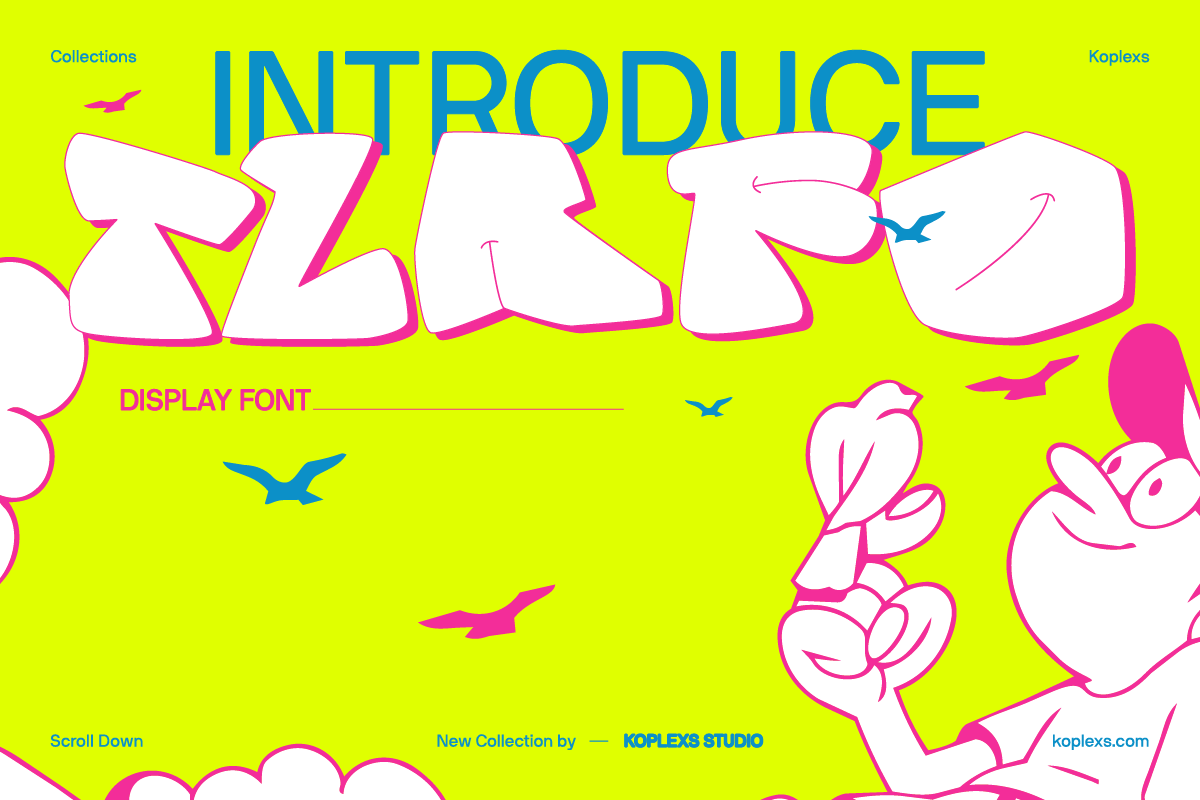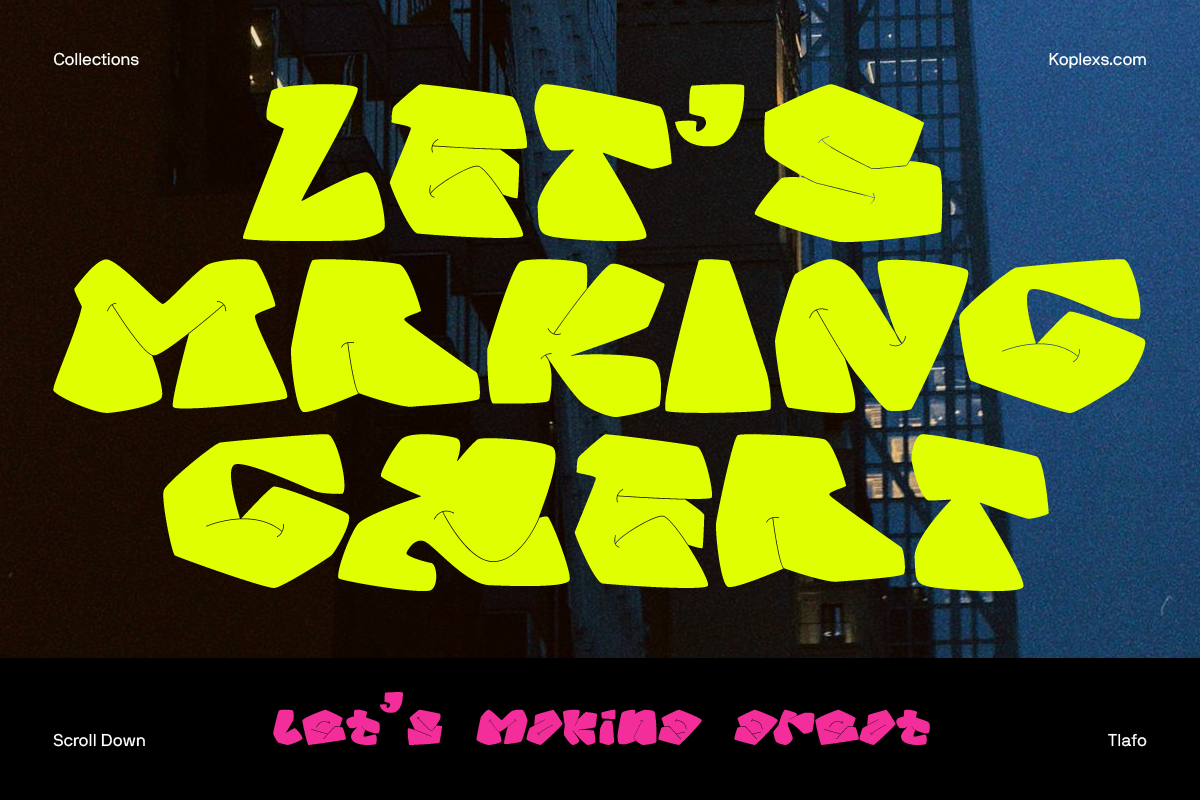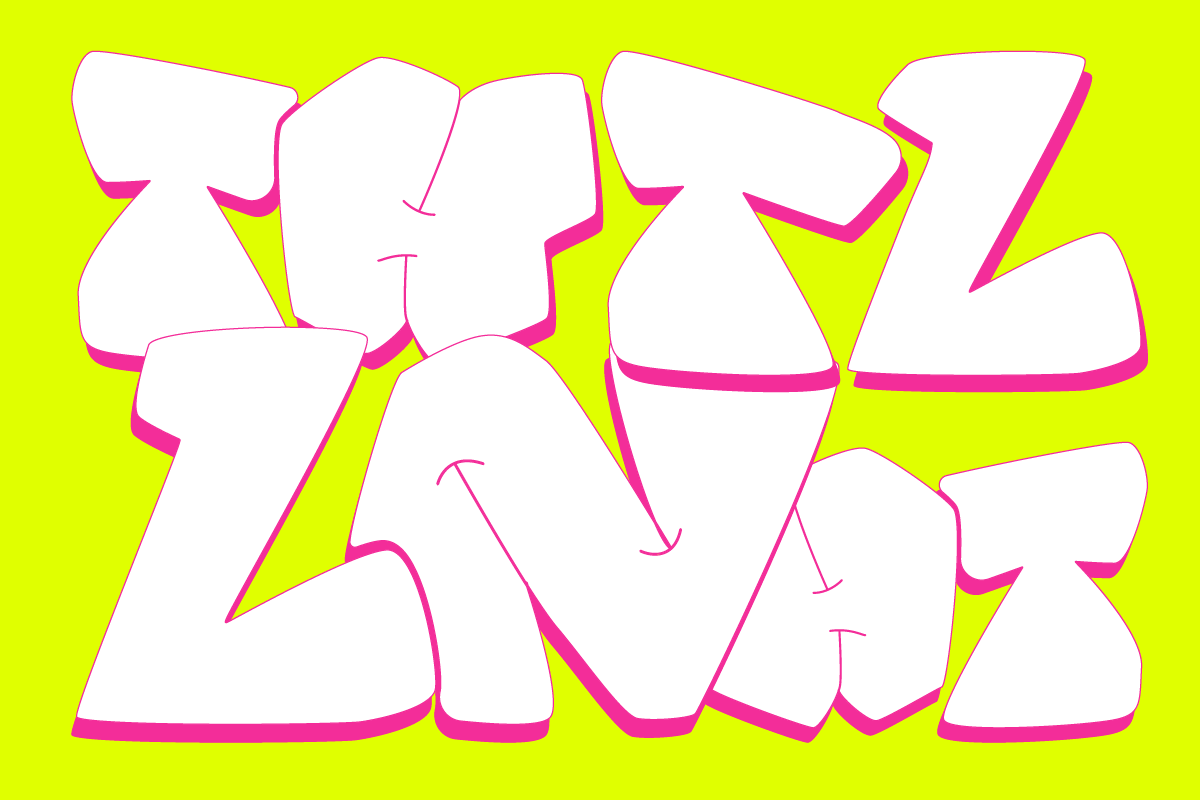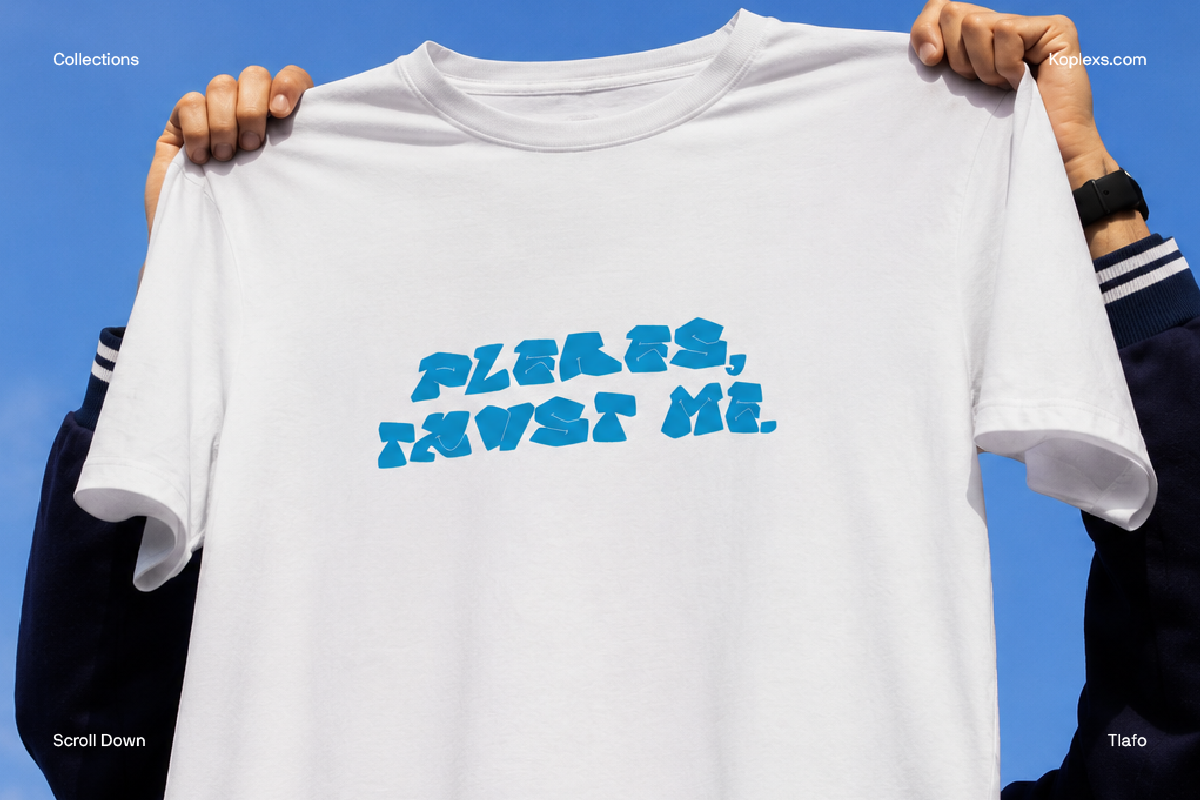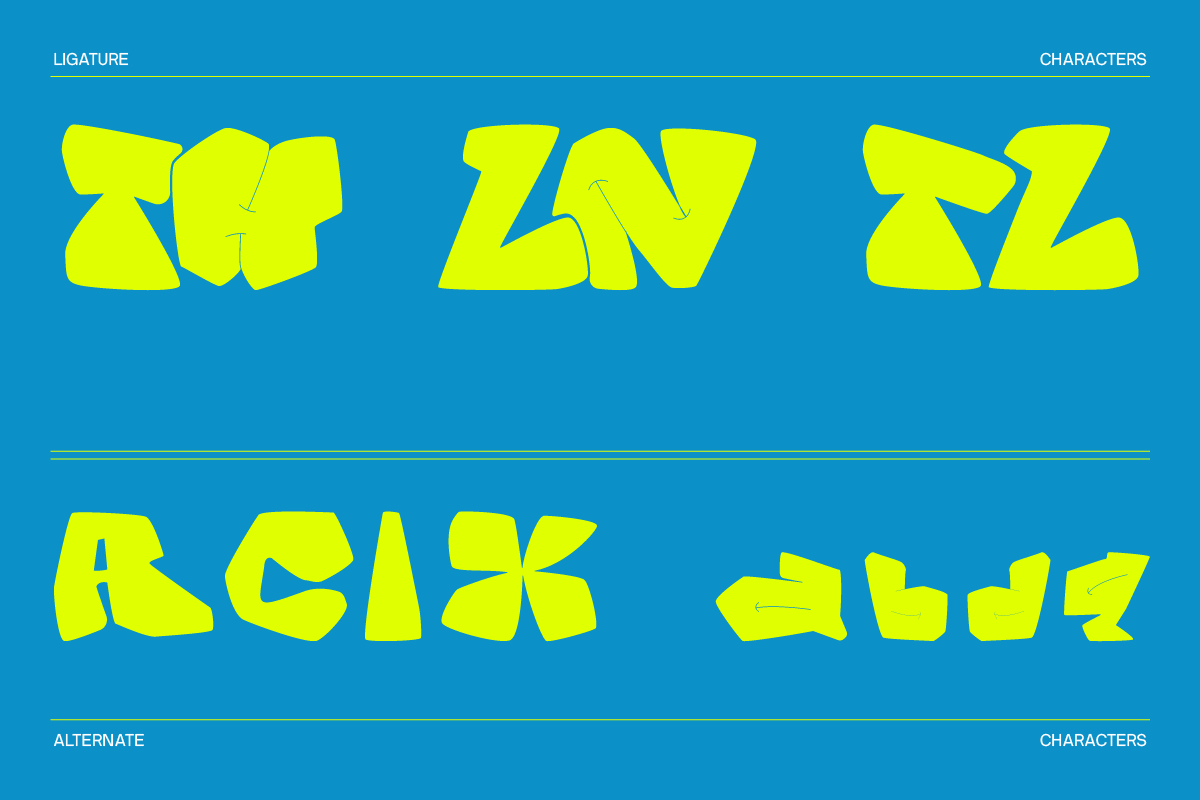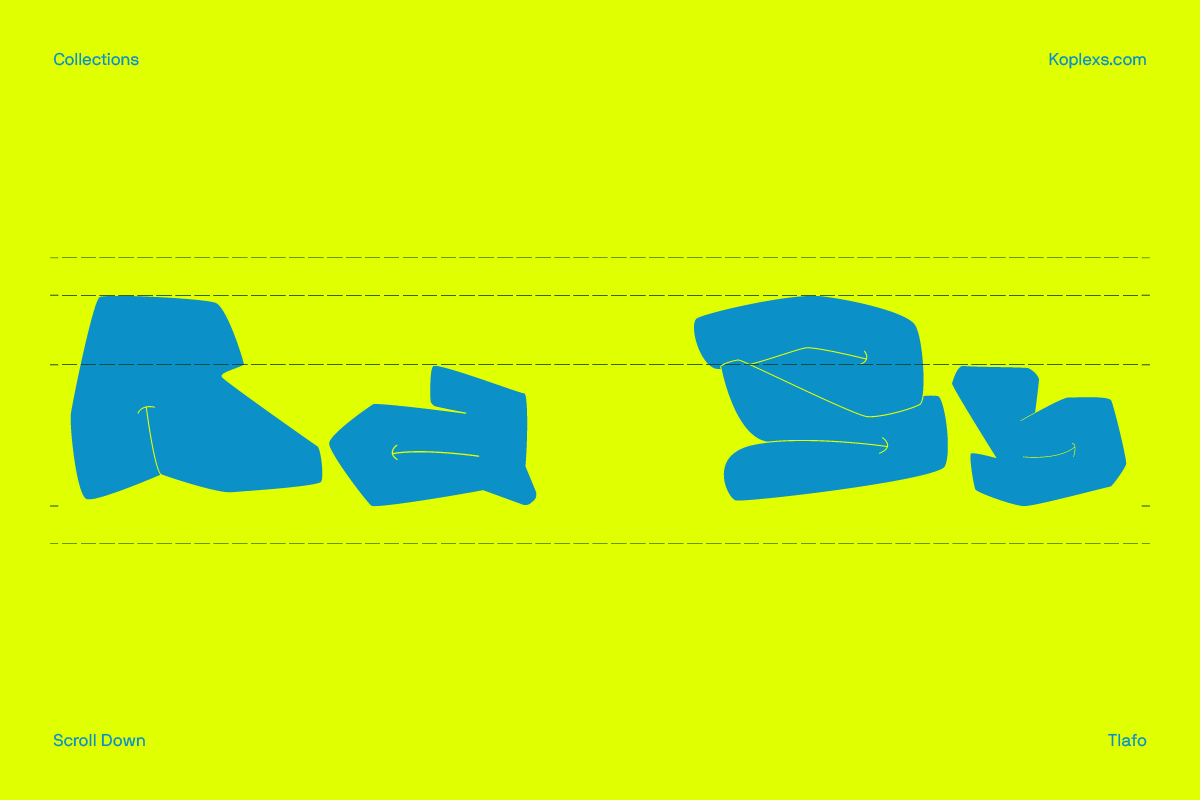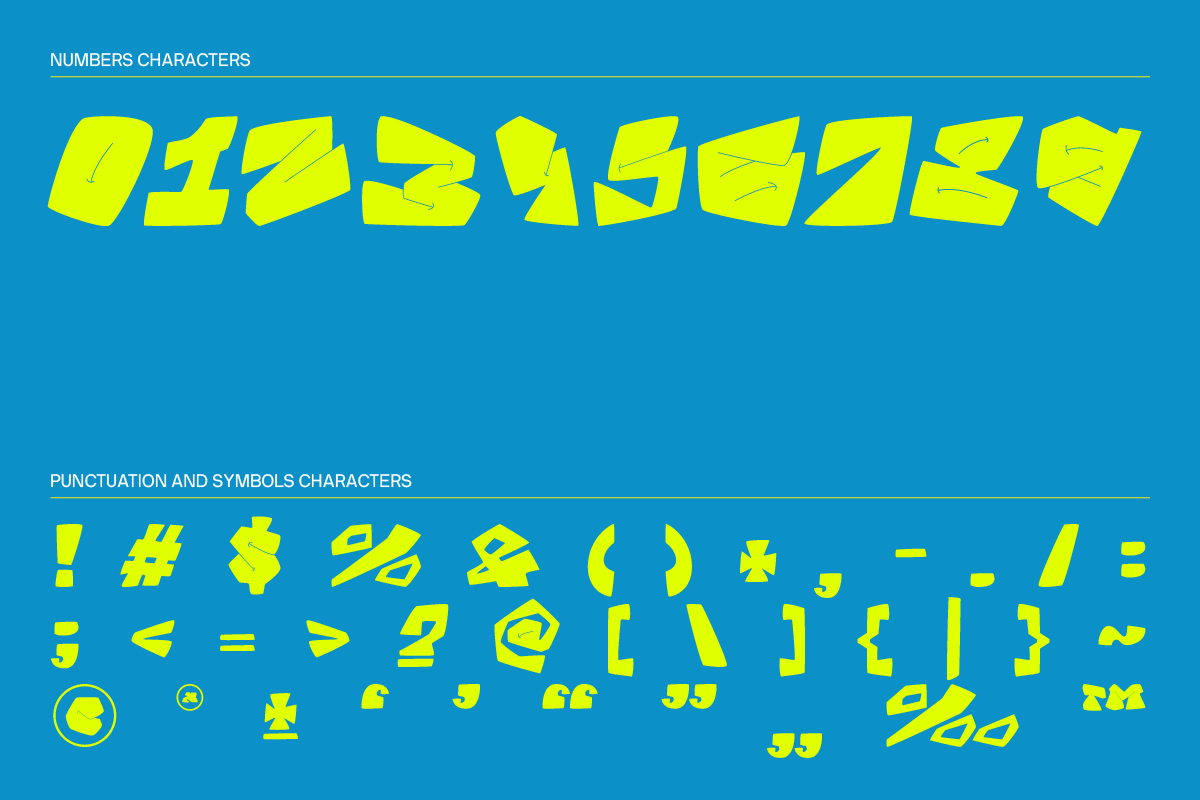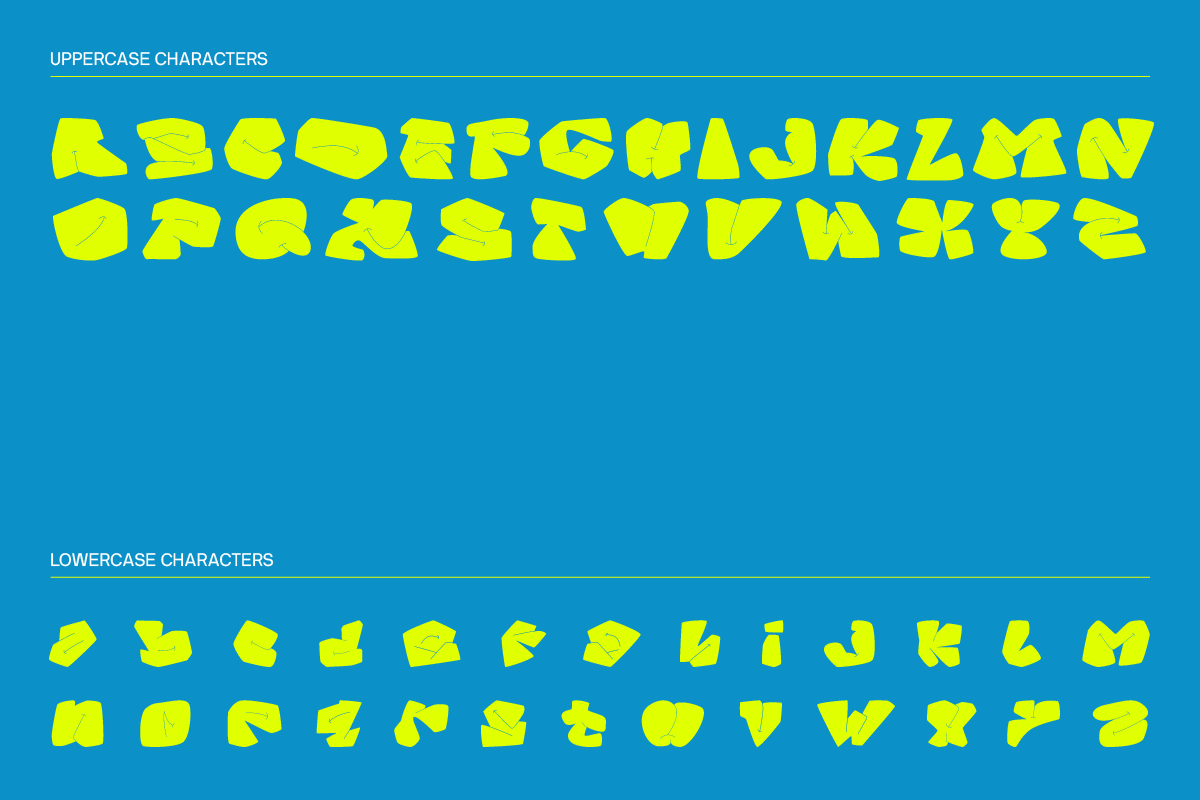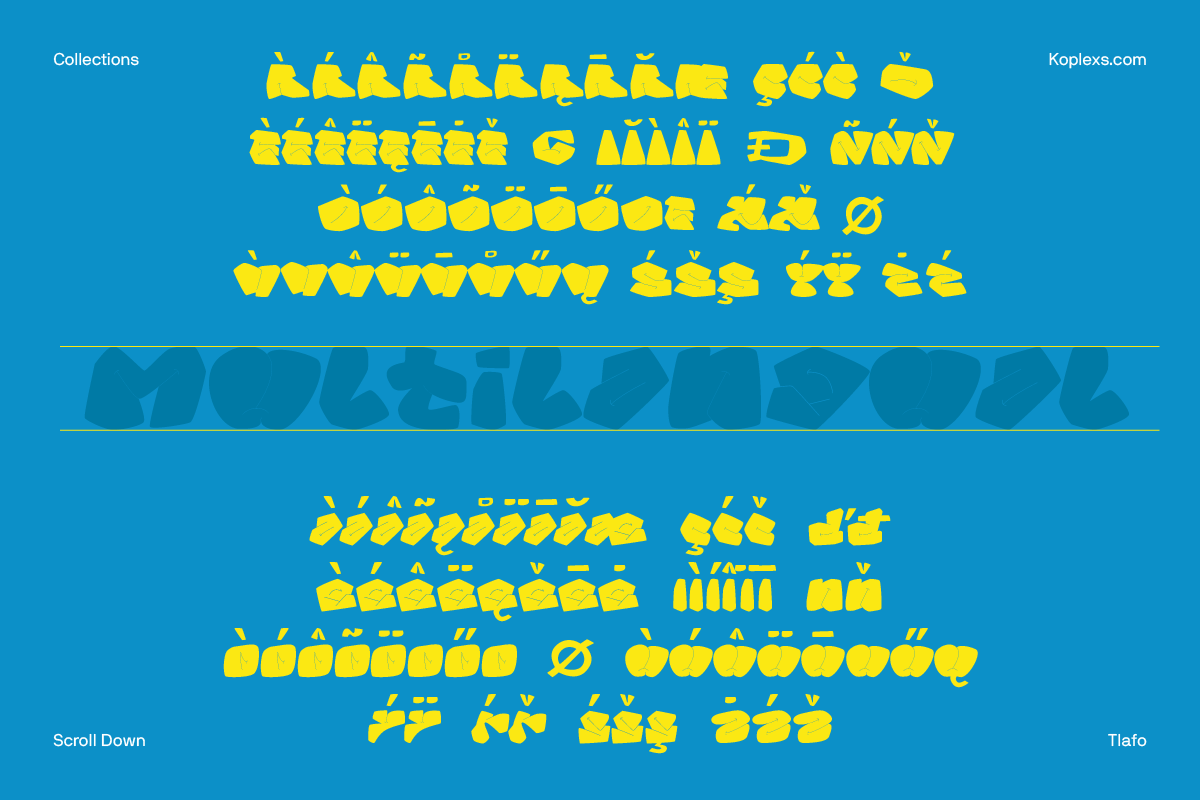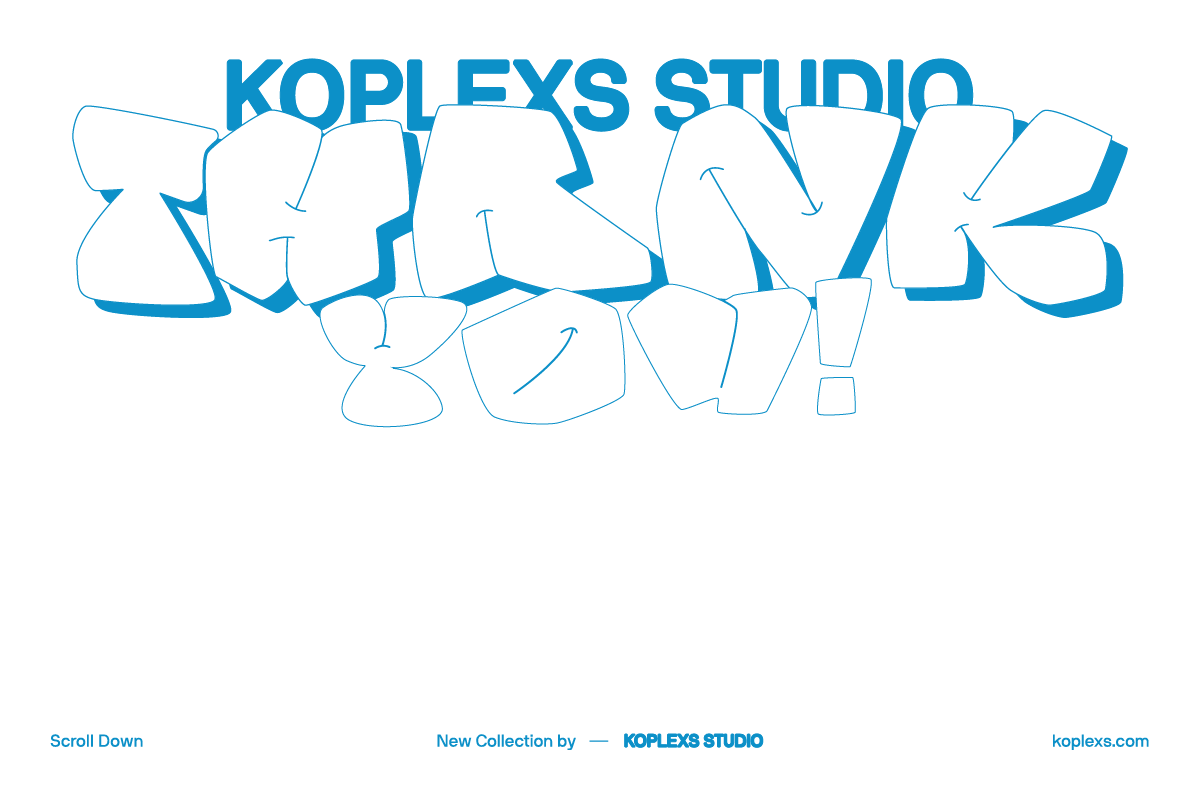
Tlafo Font – Playful Bubble Display Font for Bold Creative Designs
Tlafo Font is a playful bubble display typeface built around chunky letterforms, soft curves, and an expressive personality. Its irregular shapes give every word a lively, handcrafted feel, making it ideal when typography needs to become the main visual element.
What is Tlafo Font best for?
- Logo and brand identity
- Posters and event graphics
- Product packaging
- Streetwear and merchandise
- Album covers and music artwork
- Editorial headlines
- Stickers and labels
- Food and beverage branding
- Social media graphics
- Creative advertising
The chunky construction also makes Tlafo a natural choice for designers exploring Bold Fonts with a more playful personality.
Whether you’re creating a loud poster, a memorable logo, or packaging that needs instant character, Tlafo gives your words a fun, bold, and recognizable voice.